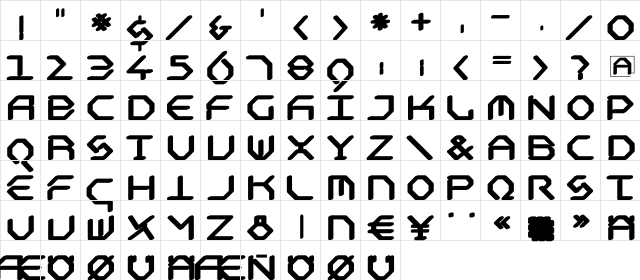
DreiDreiDrei-Black Regular
Design Context for DreiDreiDrei-Black Typeface
DreiDreiDrei-Black takes a measured approach to typography — its balanced proportions and neutral character make it a reliable workhorse for both digital and print work.